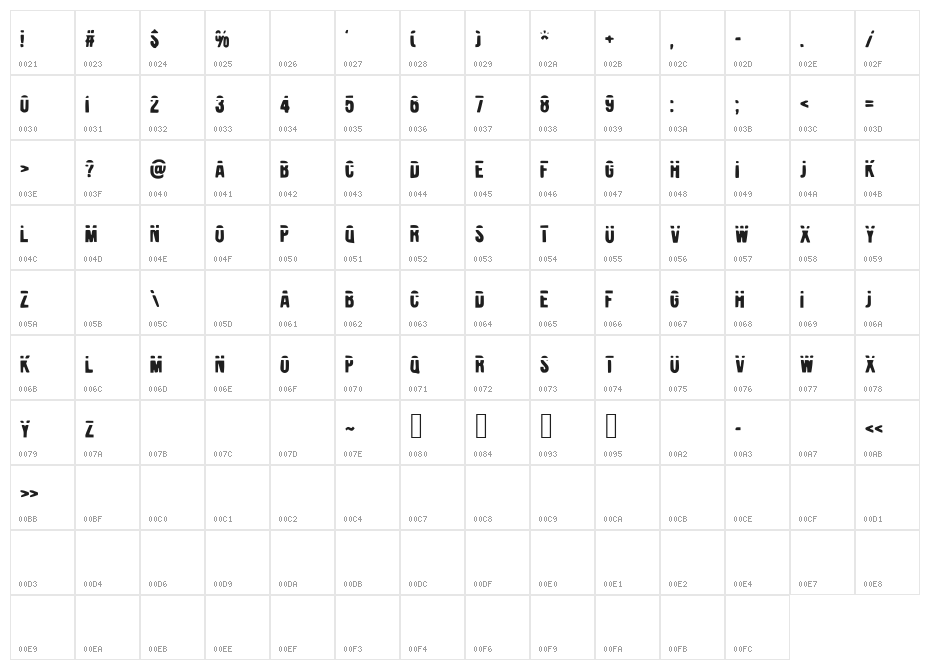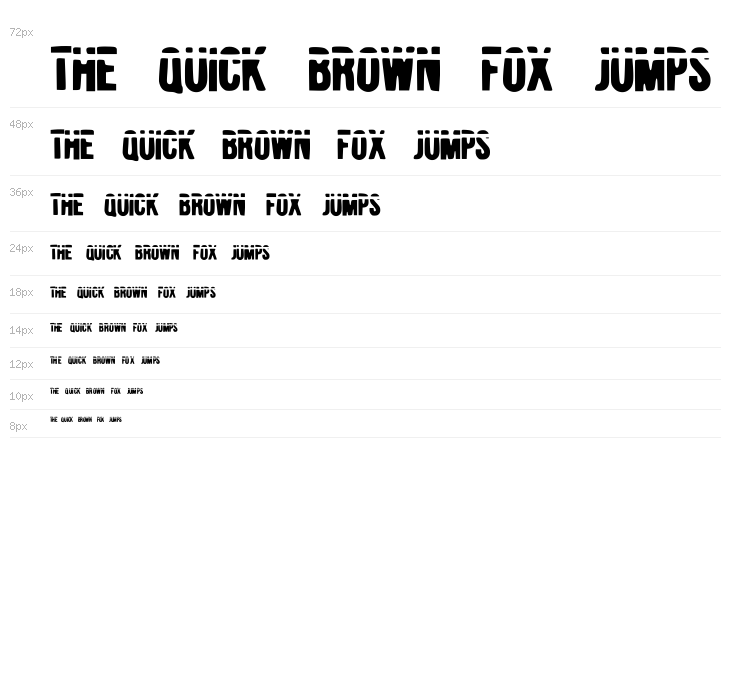
Waterline Font
Waterline Description
This font features a bold, stencil-like design with a distinctive cut-out effect that gives it a modern and industrial feel. The characters are uppercase and evenly spaced, with a consistent width that adds to its structured appearance. The bold strokes and high contrast between the filled and cut-out areas make it highly legible and impactful. The font's unique style is suitable for creating eye-catching headlines, posters, and branding materials where a strong visual presence is required.
| Proposed Projects | Ideal for use in posters, headlines, branding, and any design requiring a strong, modern aesthetic. |